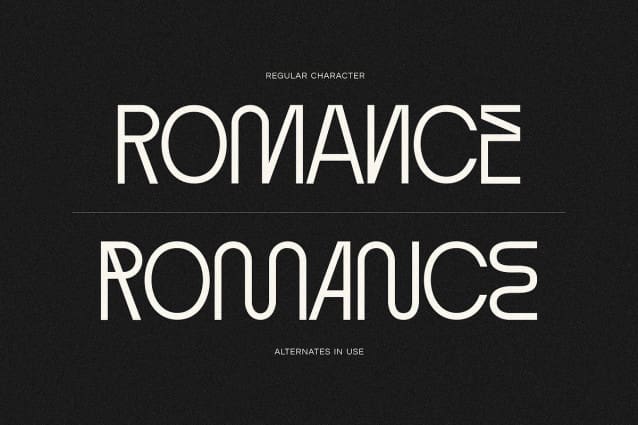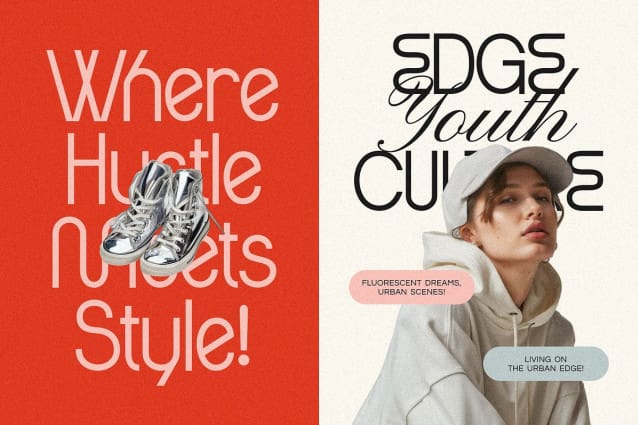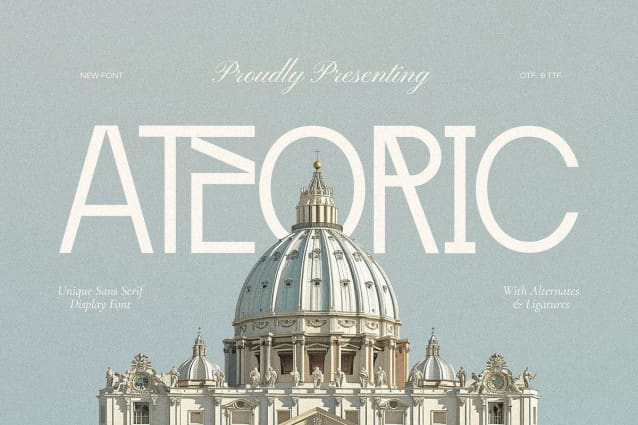
Ateoric Font
Ateoric Font is a sleek and modern font with experimental ligatures that combine letterforms into unique, connected styles. The emphasis on sharp angles, minimal curves, and creative overlaps, giving it a contemporary and artistic appeal. The alternates incorporate creative ligatures and unique shapes, giving the font versatility and a futuristic aesthetic.
It’s ideal for experimental typography, branding, headlines, art deco, editorial work that requires a contemporary and stylish look, or design projects with a futuristic or avant-garde aesthetic.